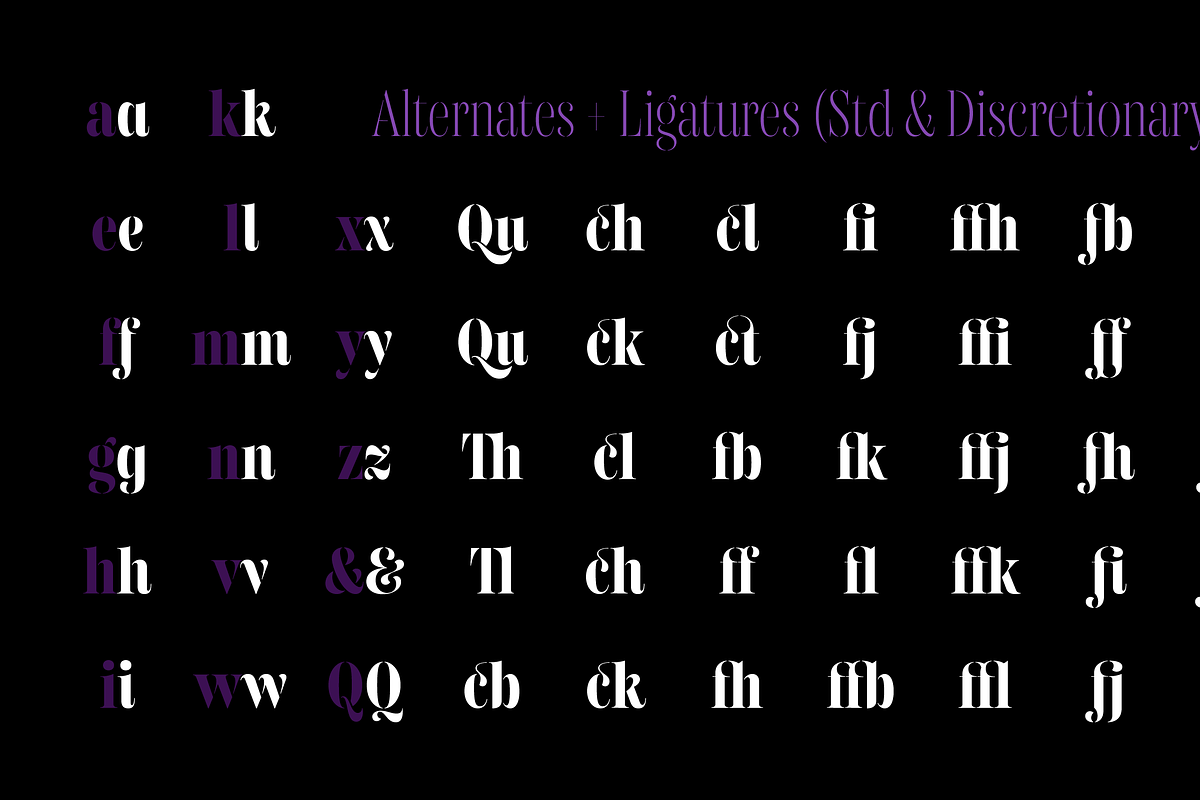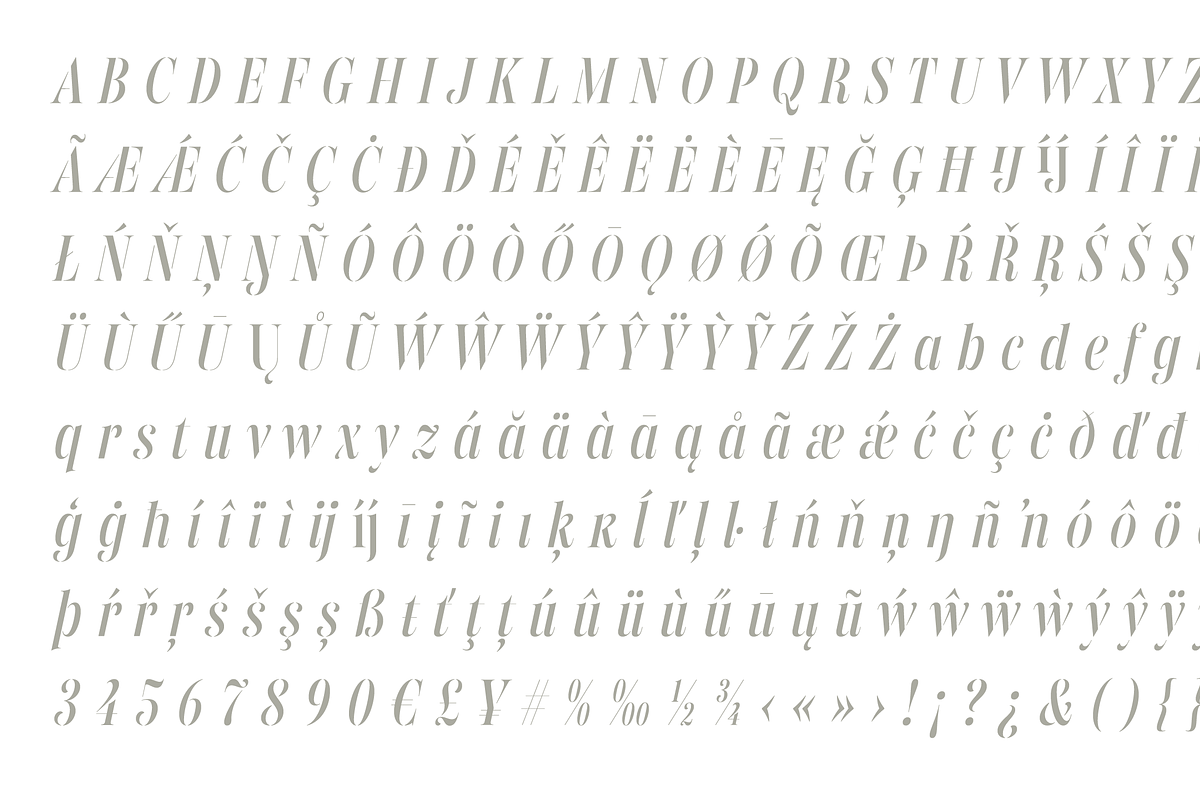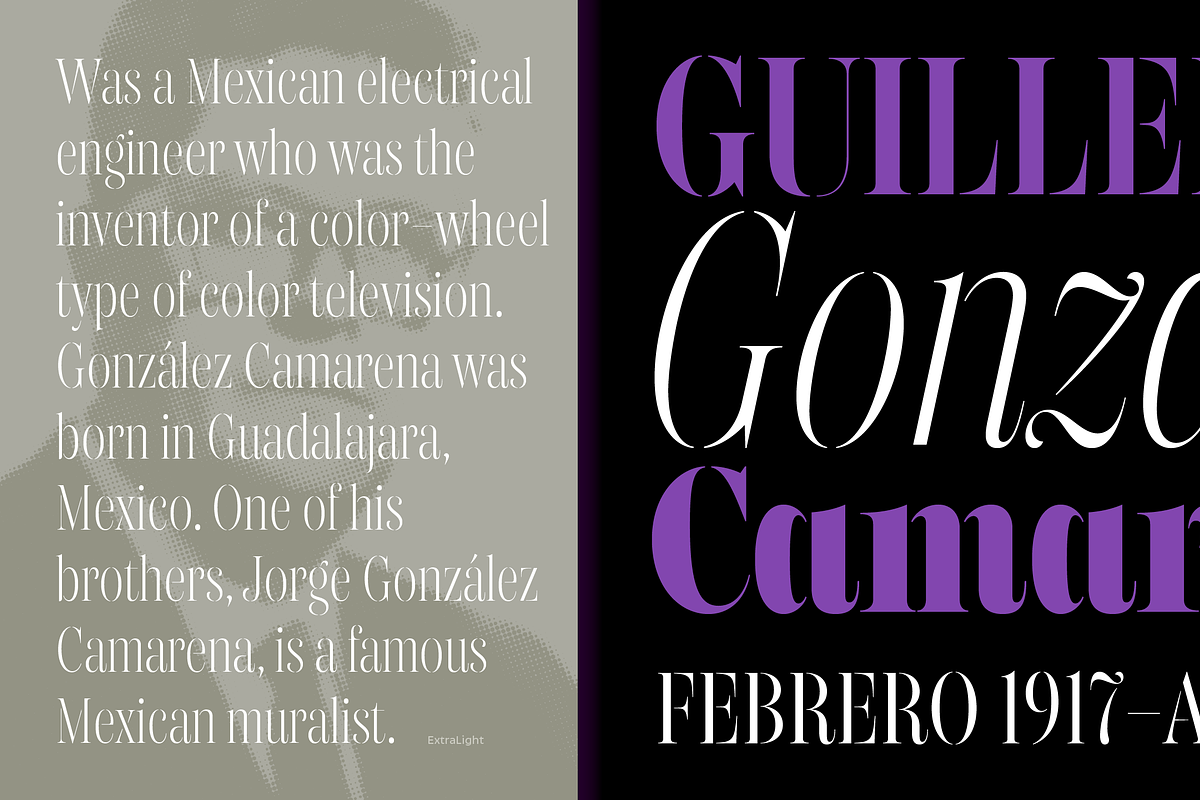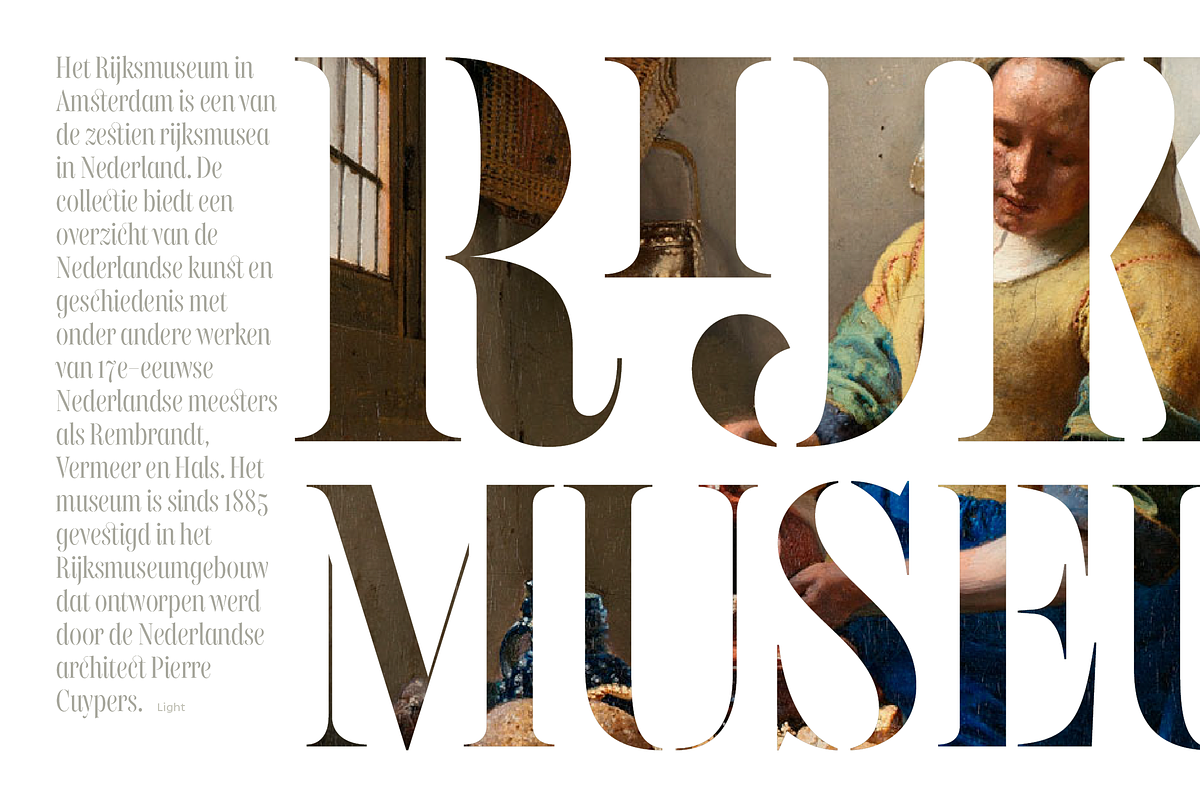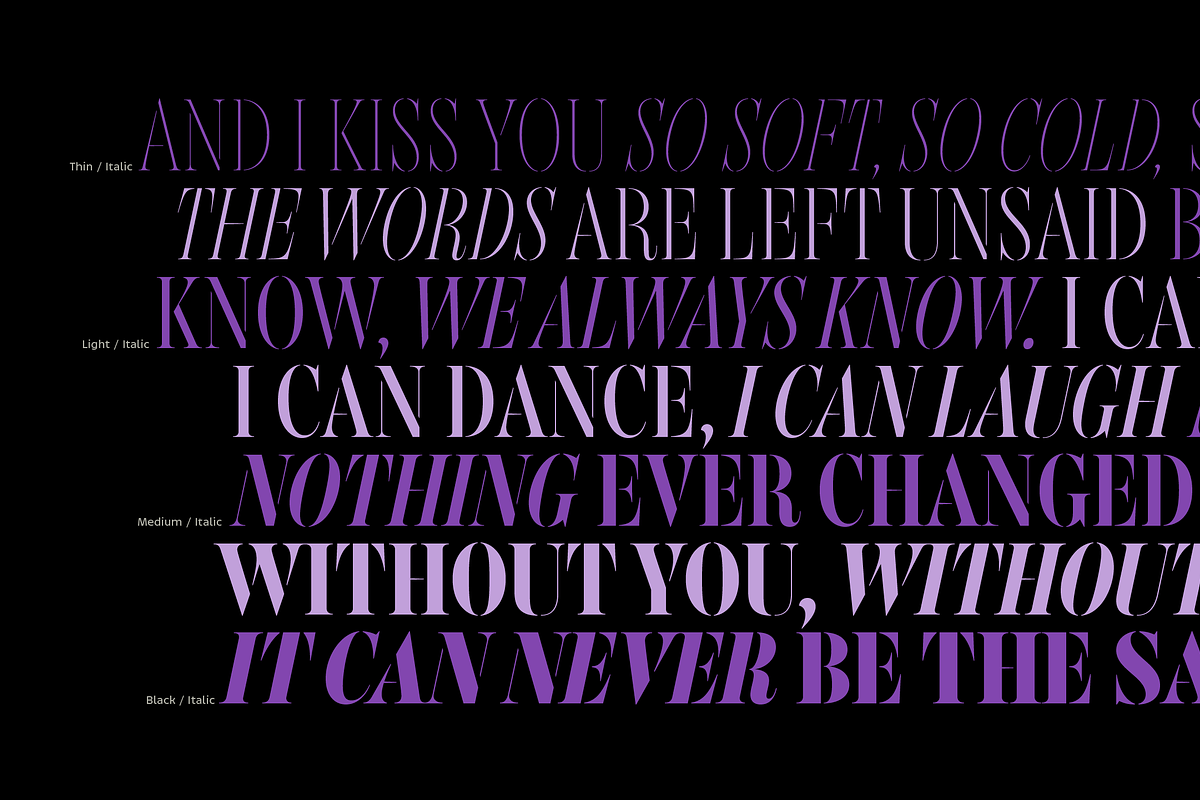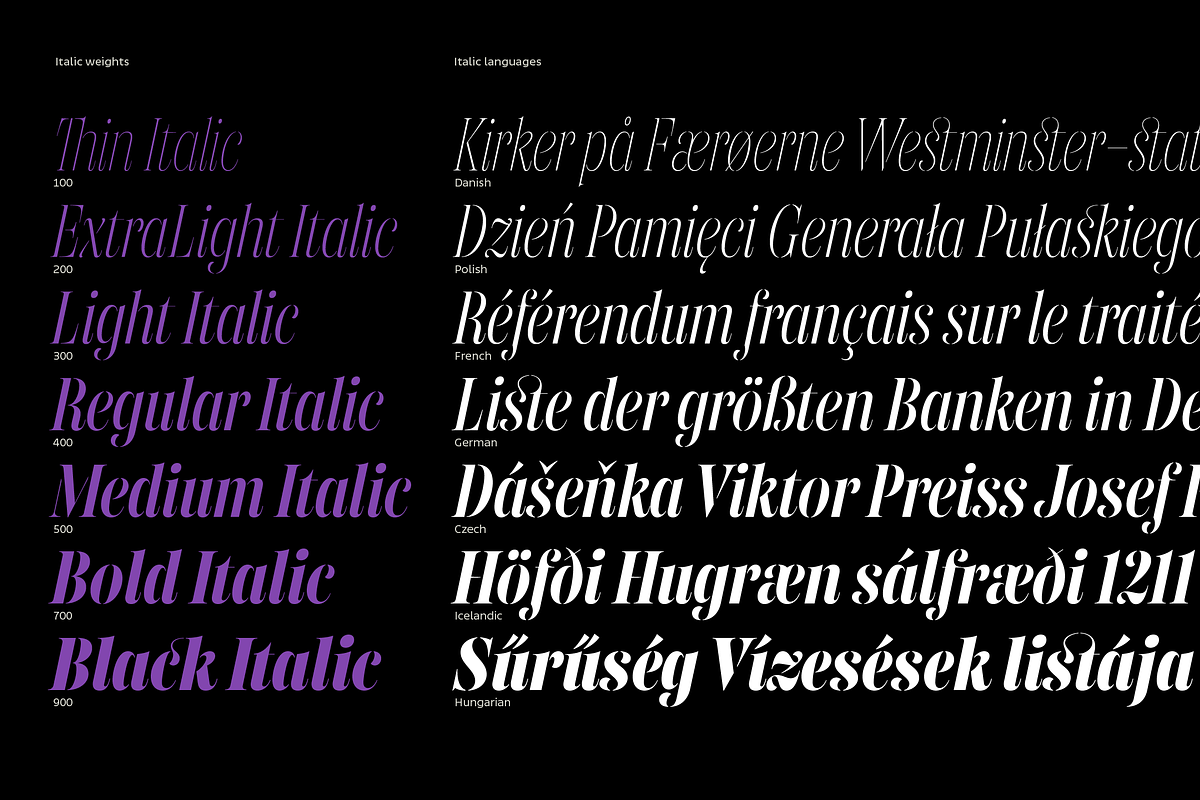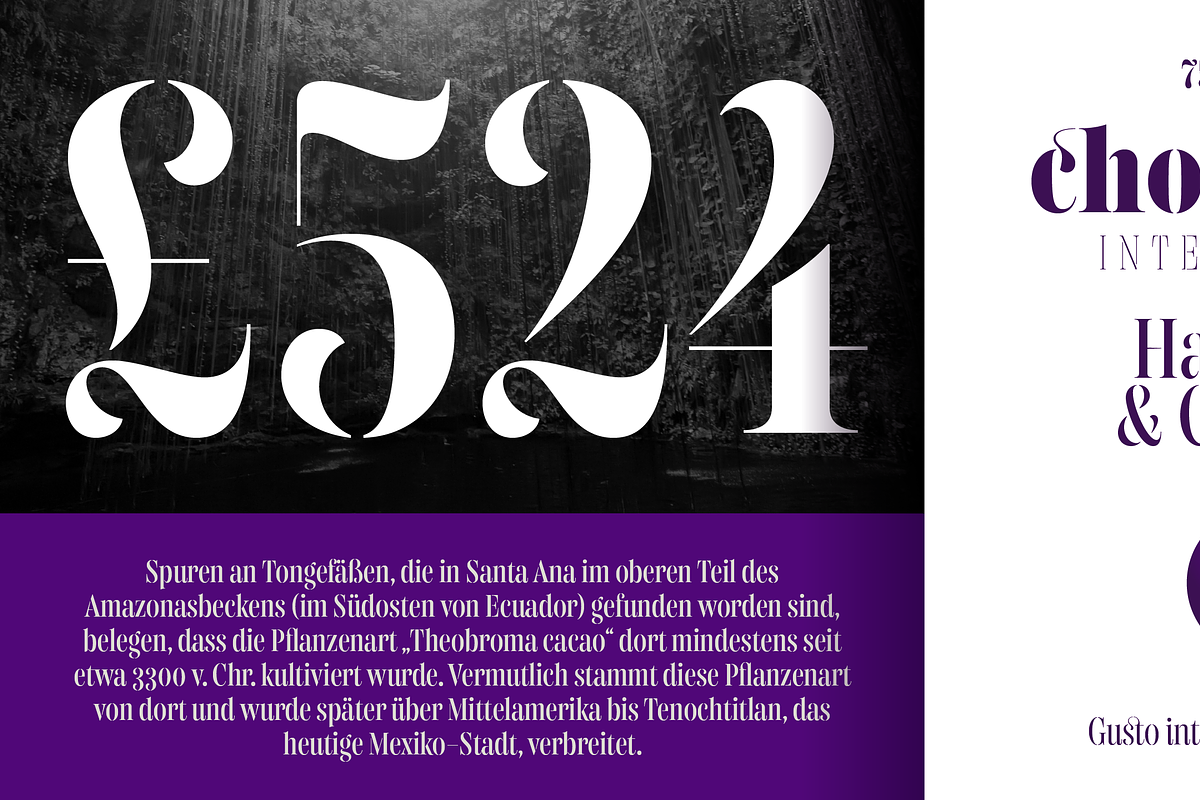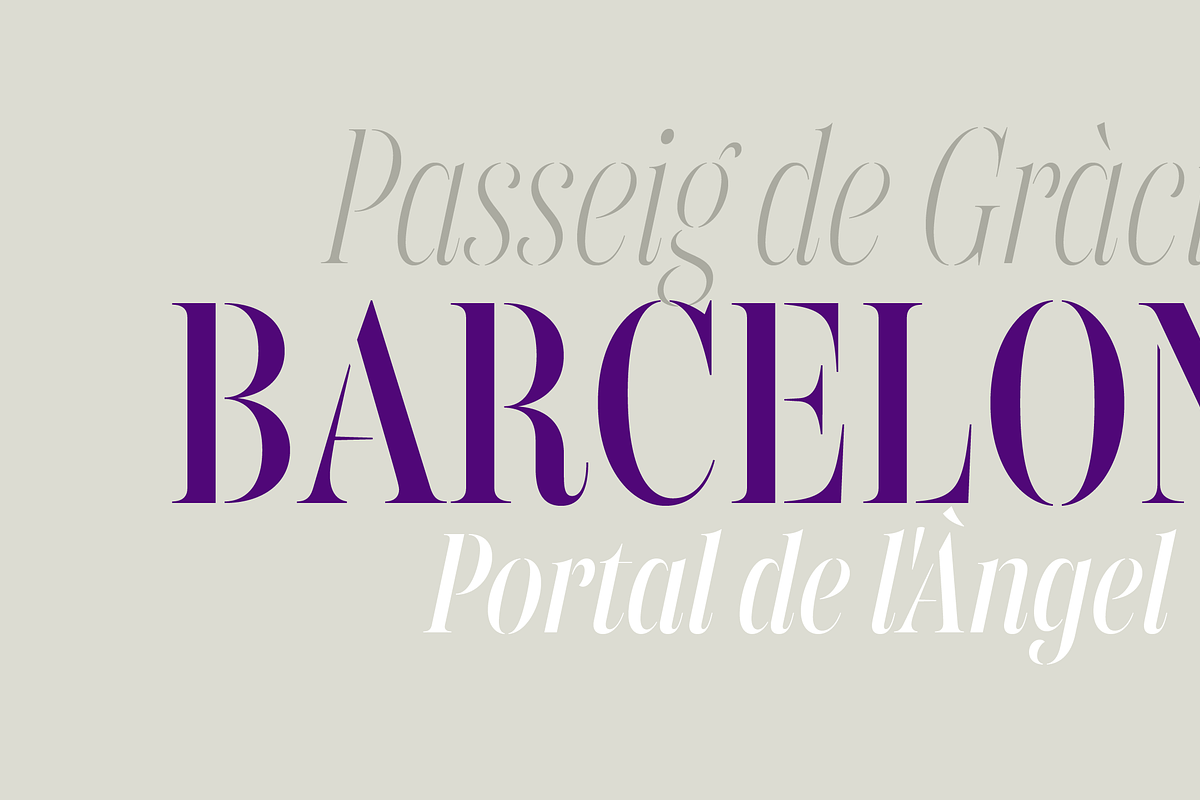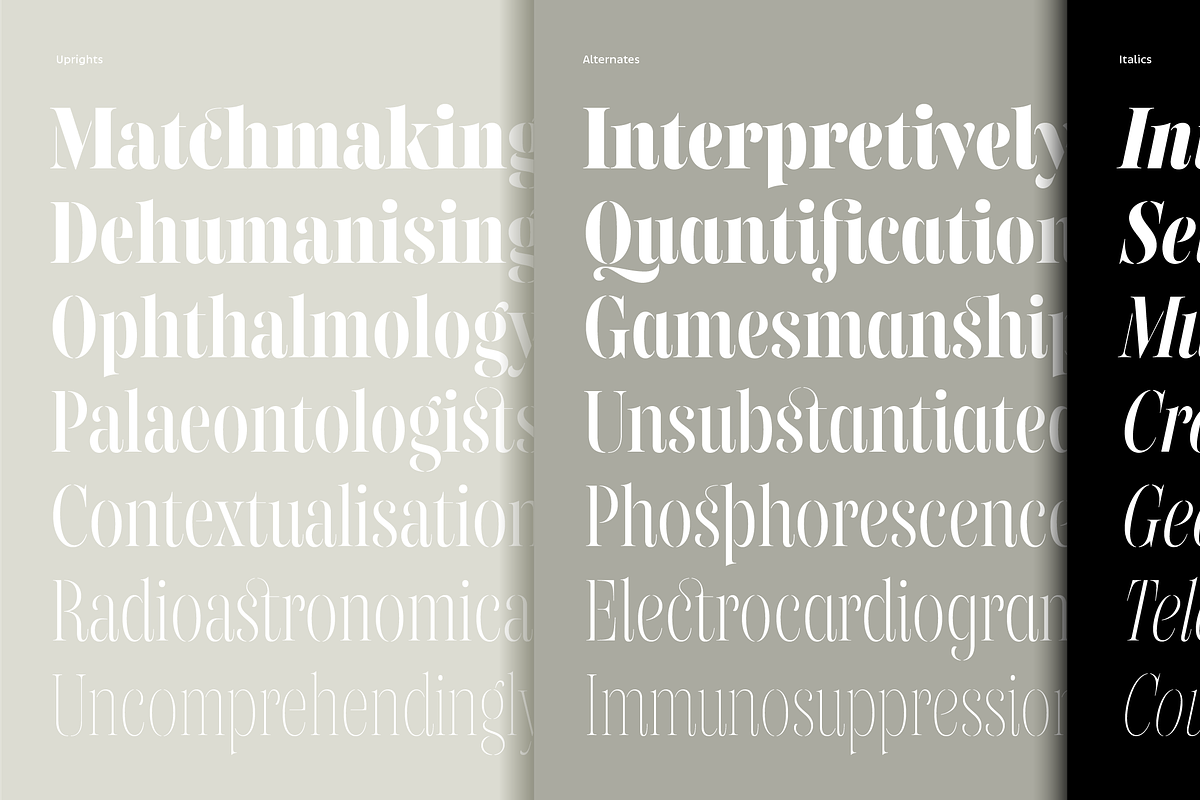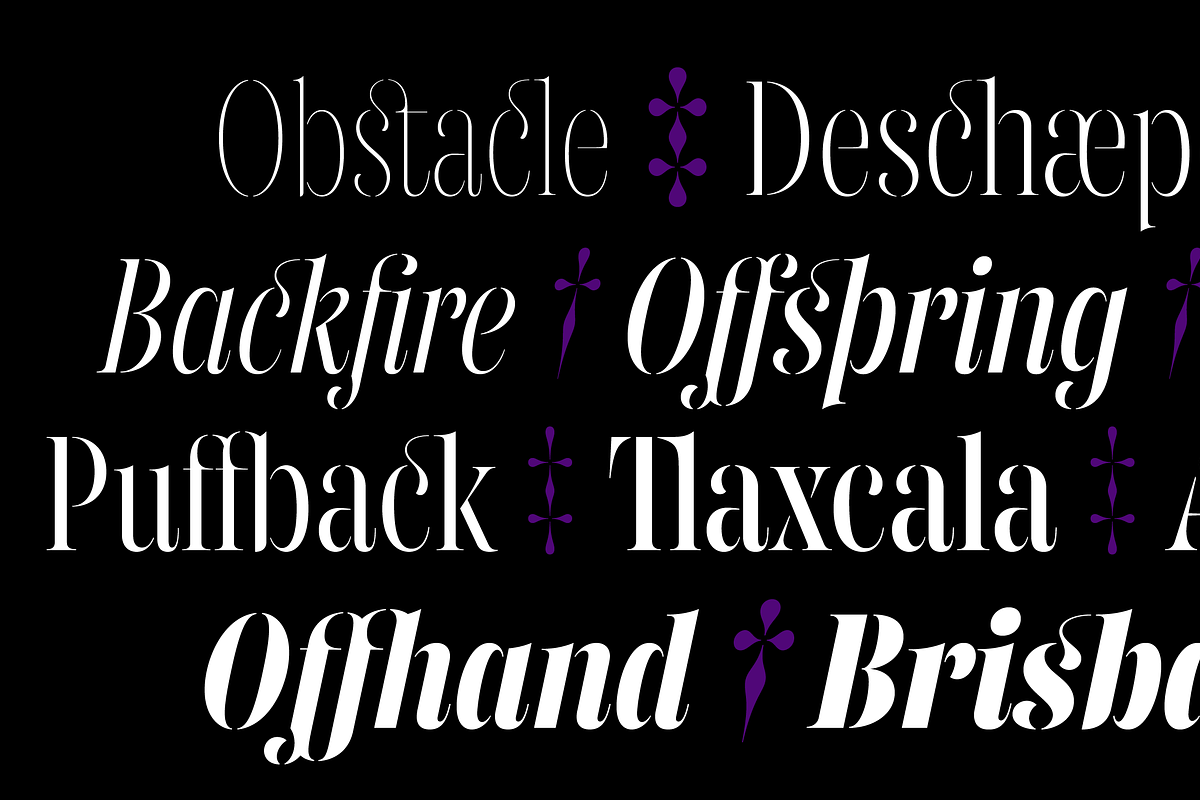
Gabriela Stencil Condensed
Gabriela Stencil is a stencil typeface inspired by the style of 19th-century Didone typefaces. It offers a condensed geometric slab design with an elegant and edgy couture feel, making it suitable for various applications like advertising, editorial work, packaging, and branding. The font family includes seven weights plus a matching italic and supports over 530 glyphs covering 94 languages. Additional features include alternates and discretionary ligatures.